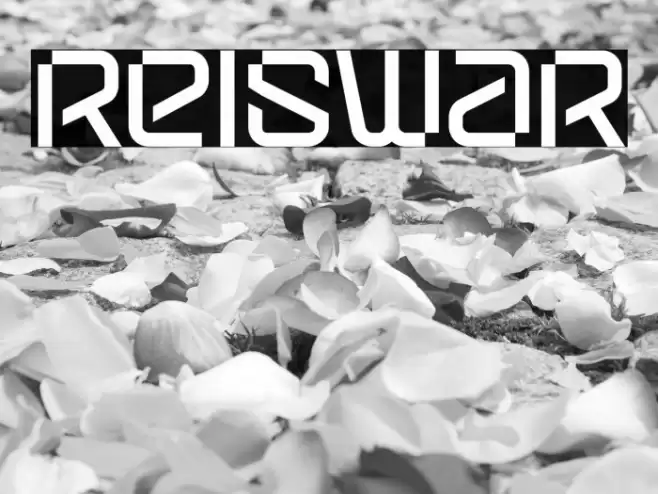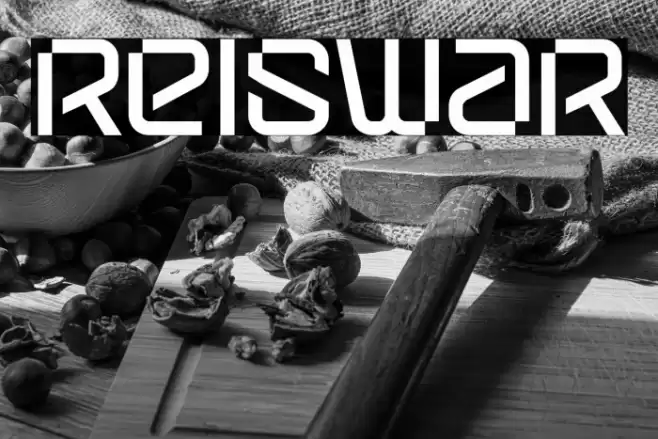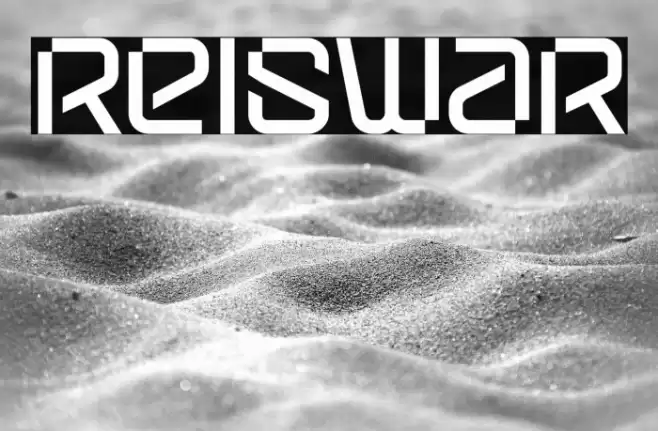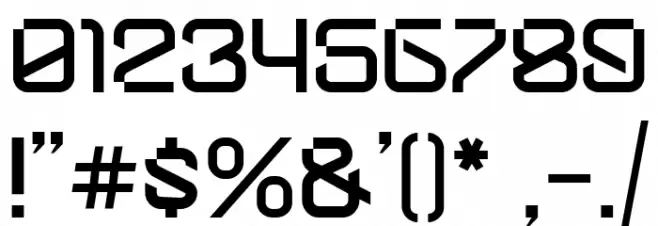
Reiswar Font
Reiswar Description
This font features a futuristic and geometric design, characterized by its angular and block-like letterforms. The uppercase and lowercase letters maintain a consistent style, with sharp edges and a uniform thickness throughout. The numerals and special characters follow the same design principles, ensuring a cohesive look across all glyphs. The font's unique style makes it stand out, with a modern and tech-inspired aesthetic that is both bold and distinctive.
A futuristic, geometric font with angular, block-like letterforms from Regular fonts.
- Proposed Projects: Ideal for technology branding, sci-fi movie posters, video game titles, and modern digital interfaces.